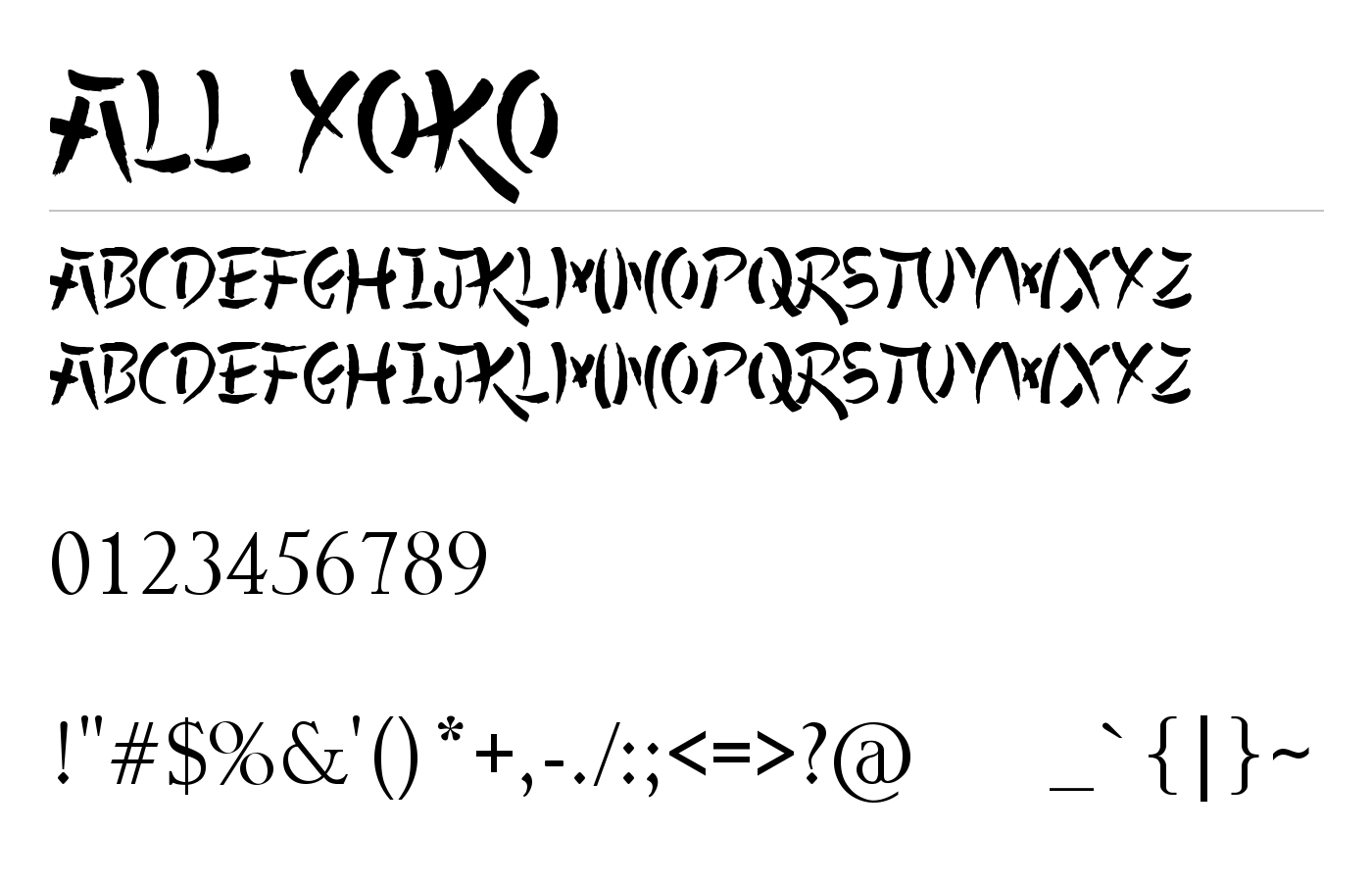
All Yoko is an expressive, hand-drawn display font with a dynamic brushstroke style that feels bold and artistic. Its irregular, sharp-edged letterforms give it an energetic and informal personality, making it perfect for creative branding, posters, and designs that need a unique, handcrafted touch. This font works best in headlines or short phrases where its lively character can stand out and add visual interest.
All Yoko Font